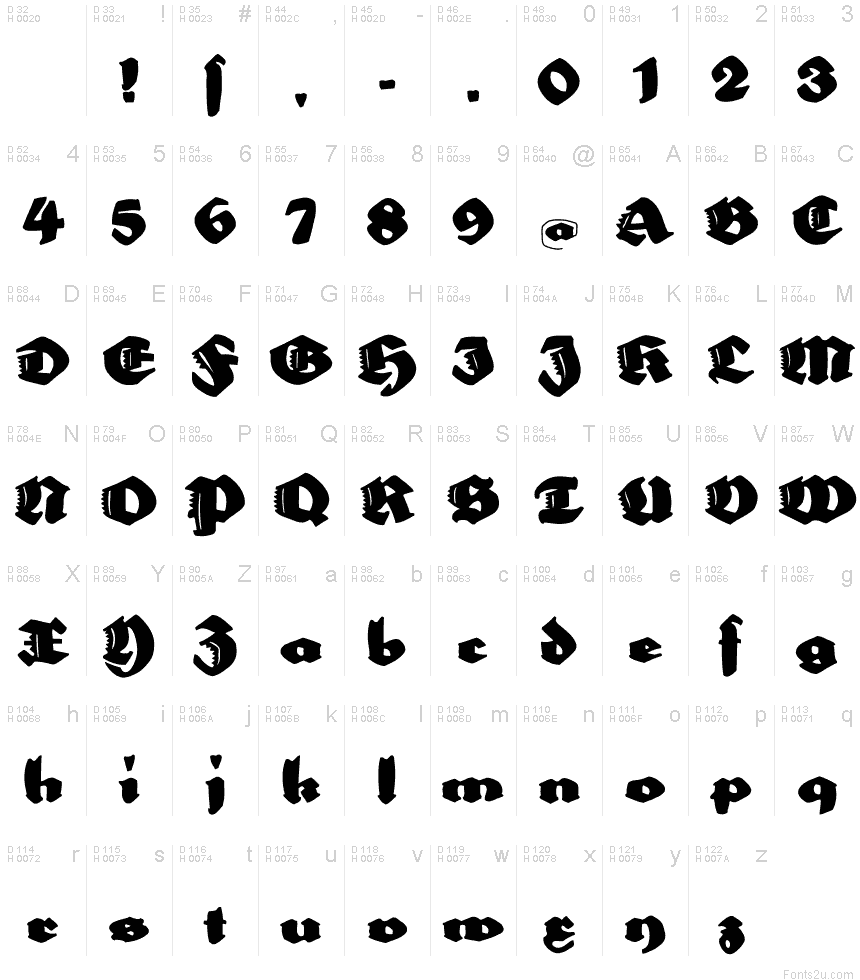
BigElla
BigElla font by M. Klein is a free gothic blackletter typeface that hits like a fresh stamp of thick, inky paint. The letters are chunky and upright with sharp notches and small carved-out gaps that give the wordmark a rugged, hand-cut authority. With its Various styles, it keeps that old-world bite while staying bold and readable.
Using BigElla on band logos, tattoo-style graphics, craft-beer labels, medieval/fantasy titles, horror posters, event flyers, and merch gives your text instant gravitas. This free font likes breathing room—size it up and keep tracking slightly open so the dark shapes don’t clog. Pair it with a clean sans for supporting details and dates.